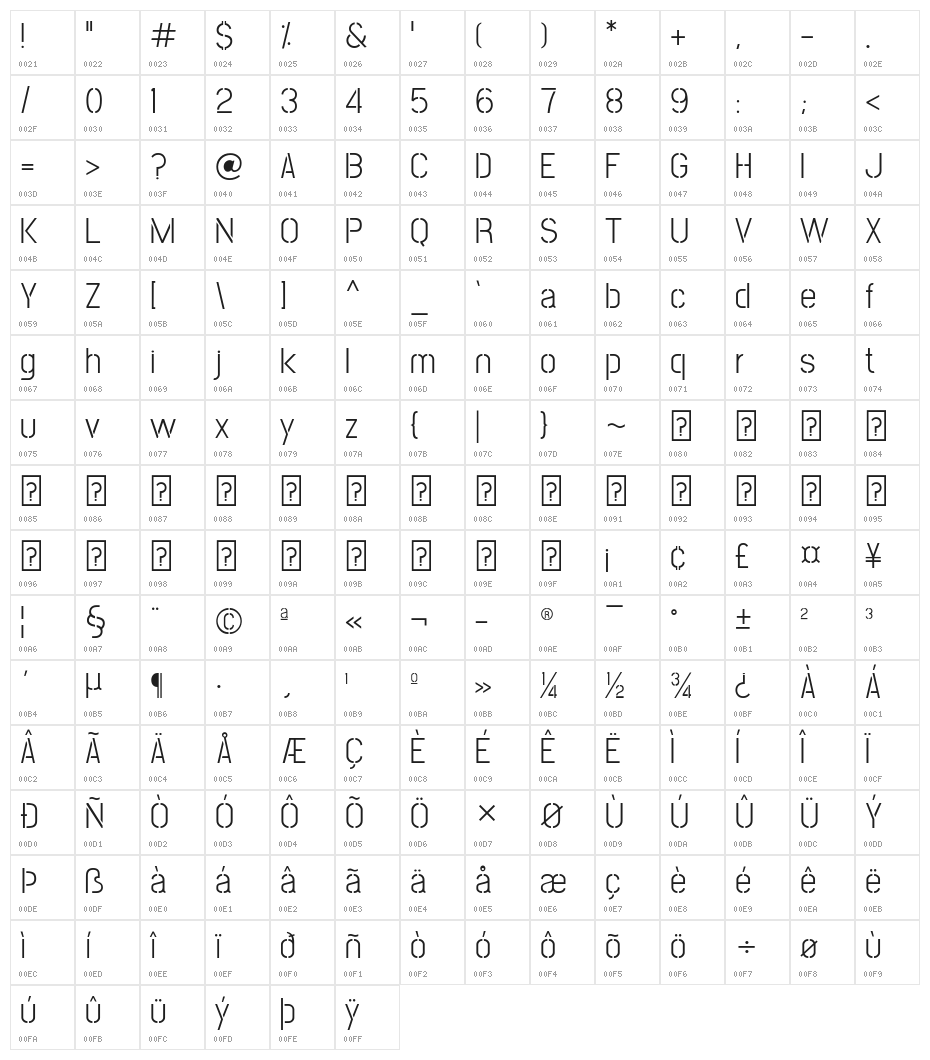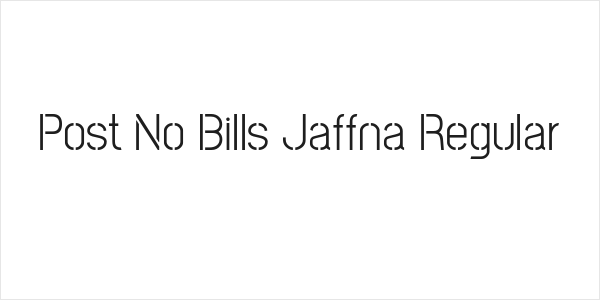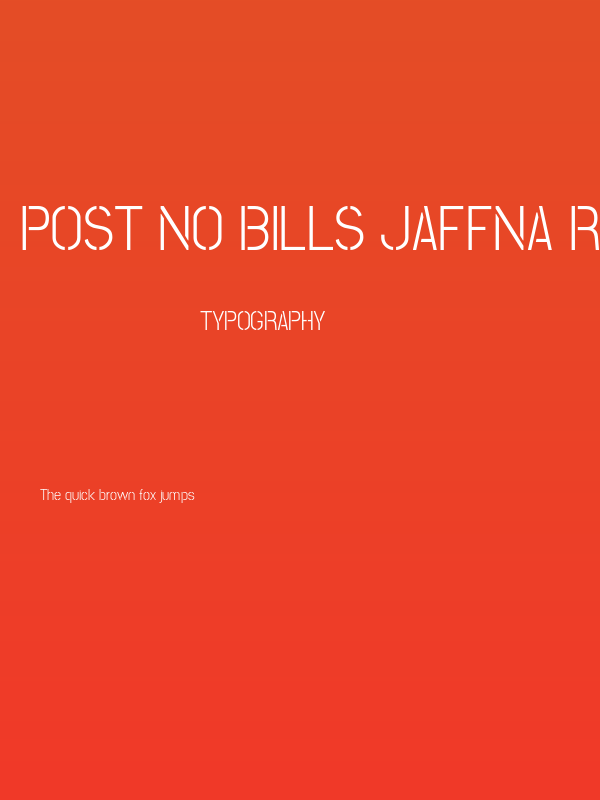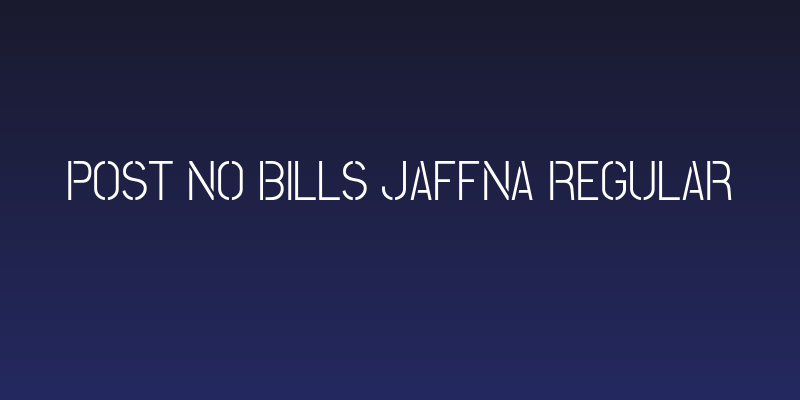
Post No Bills Jaffna Regular Font
Post No Bills Jaffna Regular Description
This font features a modern and geometric sans-serif style with clean lines and a structured appearance. The characters are constructed with a consistent stroke width, giving it a uniform and balanced look. The uppercase letters are tall and slightly condensed, while the lowercase letters maintain a similar width, creating a harmonious flow. The numerals are clear and legible, matching the overall aesthetic. Special characters are designed with the same geometric precision, making them easily recognizable. This font is versatile and suitable for various design applications.